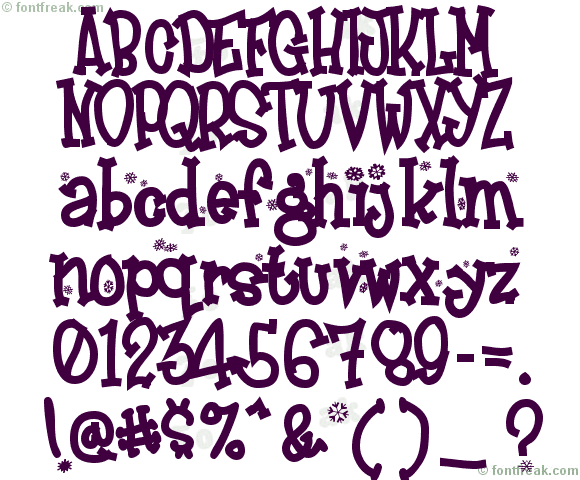
Frosty
About Frosty
Frosty, crafted by Font-a-licious Fonts in 1998, is a whimsical display font that captures attention with its playful and festive character. This decorative font stands out with its unique, frosted appearance, resembling icy letters adorned with snowflake-like elements. The stroke weight varies throughout, creating a dynamic visual appeal that is both bold and inviting. The contrast between the thick and thin strokes adds depth, while the irregular spacing gives it a handmade, organic feel that can evoke a sense of joy and creativity.
The Frosty font is perfect for a variety of specific applications. It shines in holiday-themed projects, making it an excellent choice for Christmas cards, winter event invitations, or festive party flyers. Additionally, its charming character makes it suitable for children's book covers, where the playful nature can attract young readers. Restaurant menus featuring seasonal specialties can also benefit from this engaging typeface, as it adds a touch of personality that invites diners in. Graphic designers will find this font particularly useful for creating eye-catching promotional materials or social media graphics that require a distinctive flair.